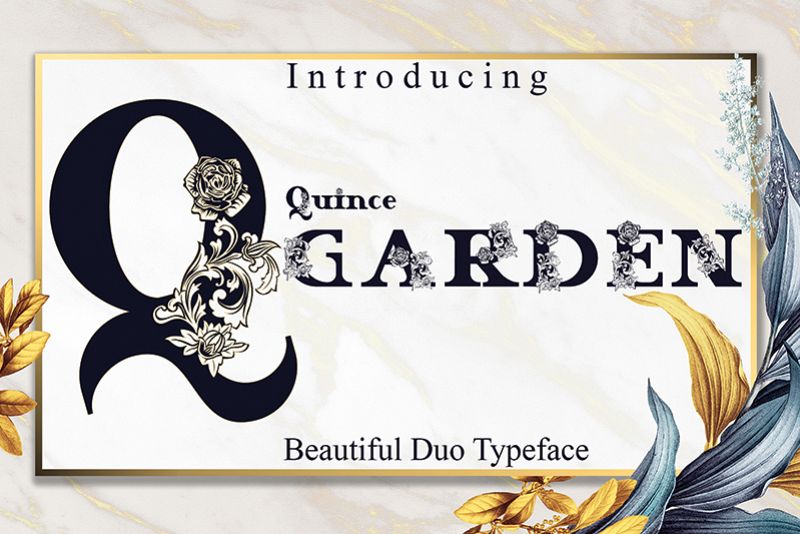
Quince Garden
Quince Garden Outline
Quince Garden is a display font that is inspired by the elegance of quince flowers in France and the beauty of roses. Quince Garden fonts have two styles, regular and outline.